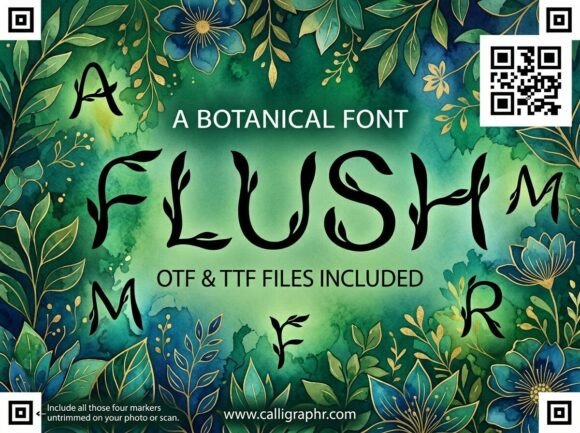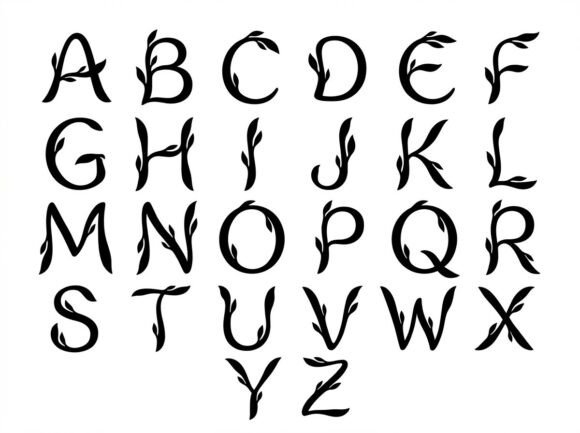
Introducing Flush Font: A Stunning Decorative Display Font
Are you tired of using the same old fonts for your designs? Do you want to make a statement and grab the attention of your audience? Look no further than Flush Font, a unique and artistic decorative display font that’s perfect for creators who want to break away from the ordinary.
A Font that’s Truly One-of-a-Kind
Flush Font is a carefully crafted font that’s designed to be the center of attention. With its unique artistic elements and strong visual personality, this font is sure to make your designs stand out from the crowd. Whether you’re looking to create bold headlines, artistic logos, or creative packaging, Flush Font is the perfect choice.
Versatile and Professional
One of the best things about Flush Font is its versatility. This font is perfect for a wide range of design applications, from high-impact headlines and logos to decorative initials and packaging. And with its professional and polished finish, you can be sure that your designs will look great no matter where you use them.
This means that Flush Font is perfect for designs where you want to make a big impact, but it’s not the best choice for body text or other applications where you need to use lowercase letters.
Why Choose Flush Font?
So why should you choose Flush Font for your designs? Here are just a few reasons:
- Unique and artistic design – Flush Font is a one-of-a-kind font that’s sure to grab attention.
- Versatile – Use Flush Font for a wide range of design applications, from headlines and logos to packaging and more.
- Professional and polished finish – Flush Font looks great in any design, and is sure to make a professional impression.
Flush Font is perfect for designers and crafters who want to add a touch of elegance and sophistication to their work. Whether you’re creating:
- Logos and branding – Use Flush Font to create a unique and memorable logo that stands out from the crowd.
- Headlines and titles – Add a touch of drama and flair to your headlines and titles with Flush Font.
- Packaging and product design – Use Flush Font to create eye-catching packaging and product designs that grab attention.
Flush Font is the perfect choice.
In conclusion, Flush Font is a stunning decorative display font that’s perfect for creators who want to make a statement. With its unique artistic elements, strong visual personality, and versatile design, this font is sure to grab attention and make your designs stand out from the crowd. So why wait? Purchase Flush Font today and start creating stunning designs that leave a lasting impression.